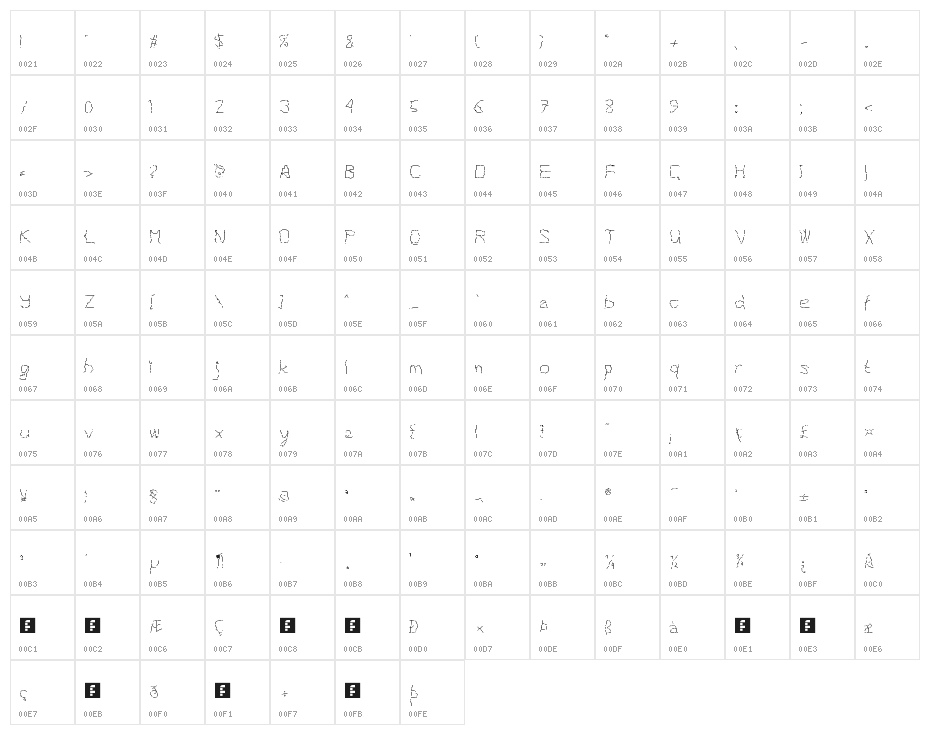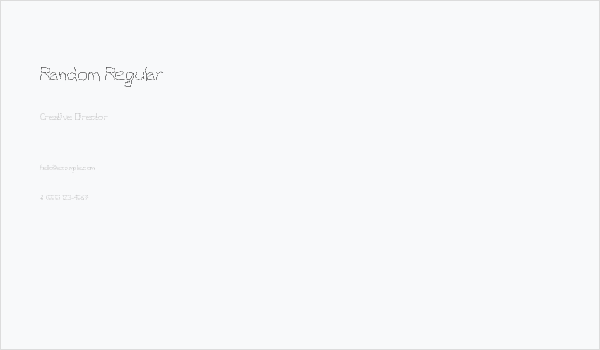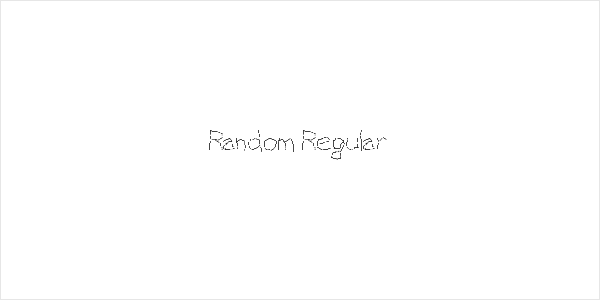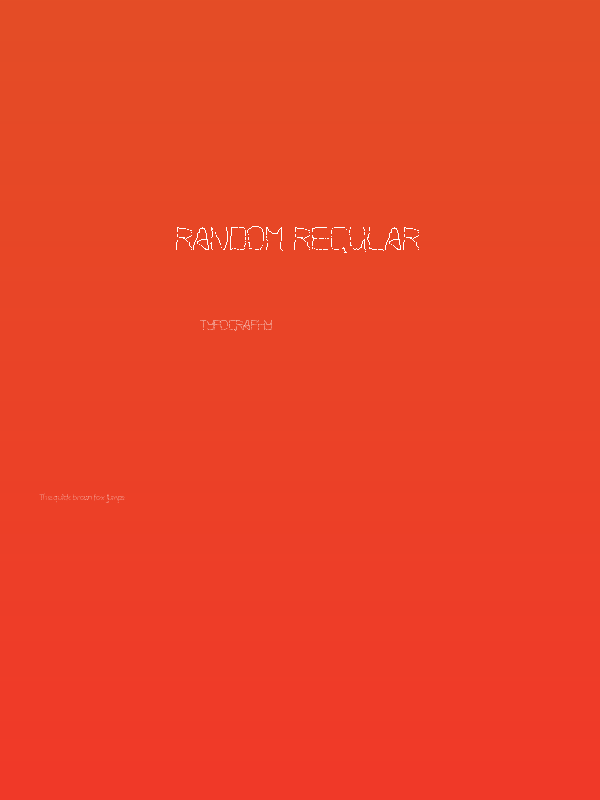
Random Regular Font
| Stile generale | Whimsical, Playful, Artistic |
| Caso d'uso | Headlines, Creative projects, Artistic designs |
| Progetti proposti | Ideal for children's books, creative invitations, playful branding, and artistic posters. |